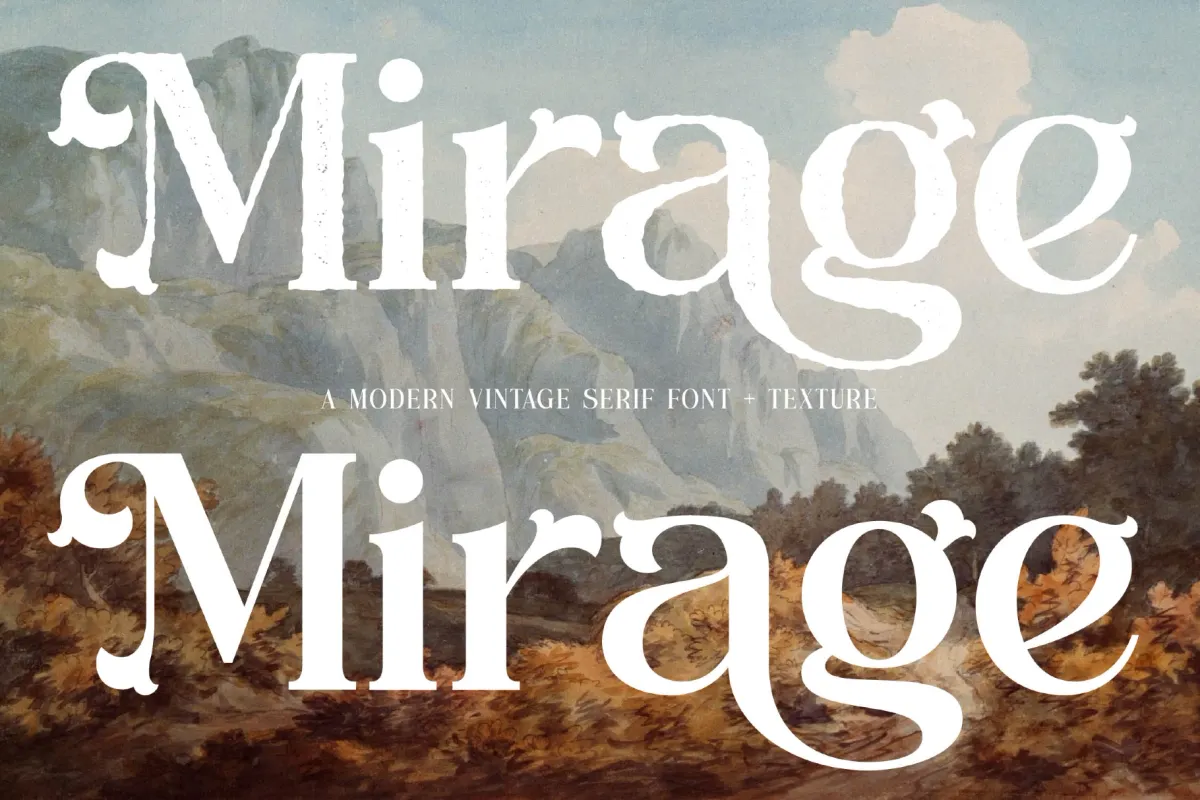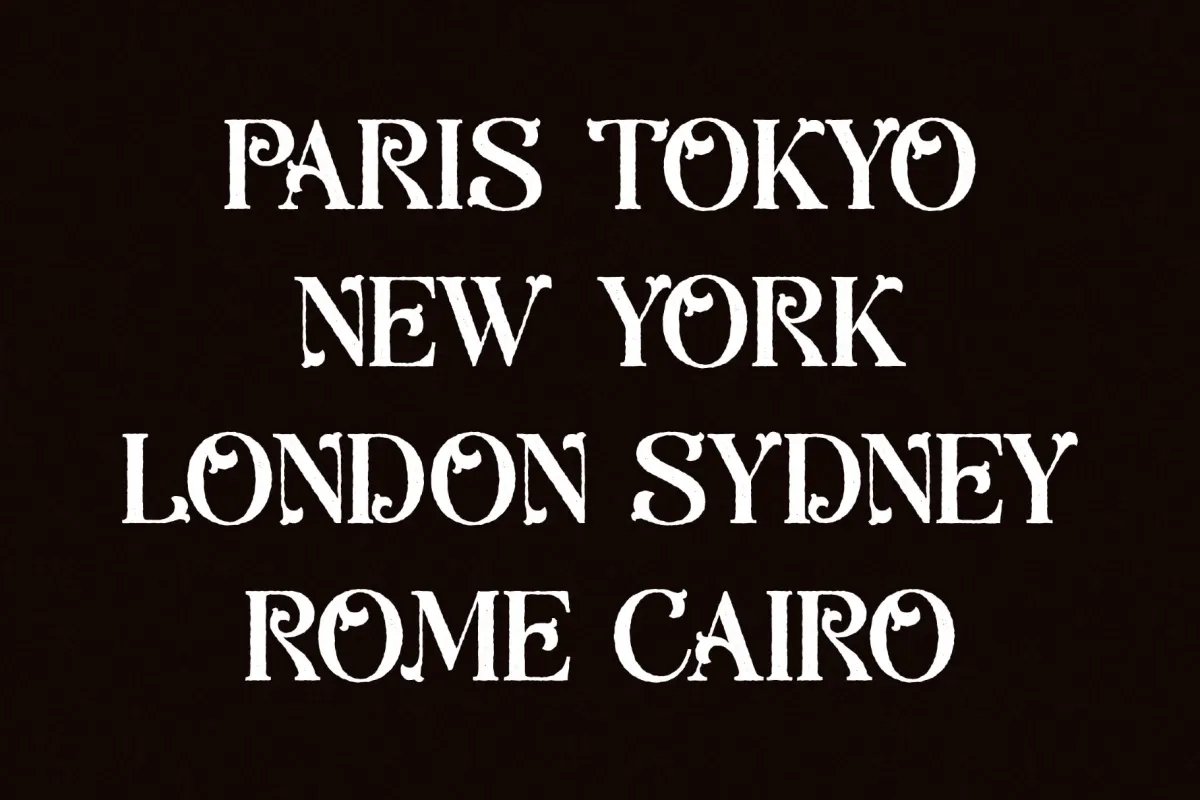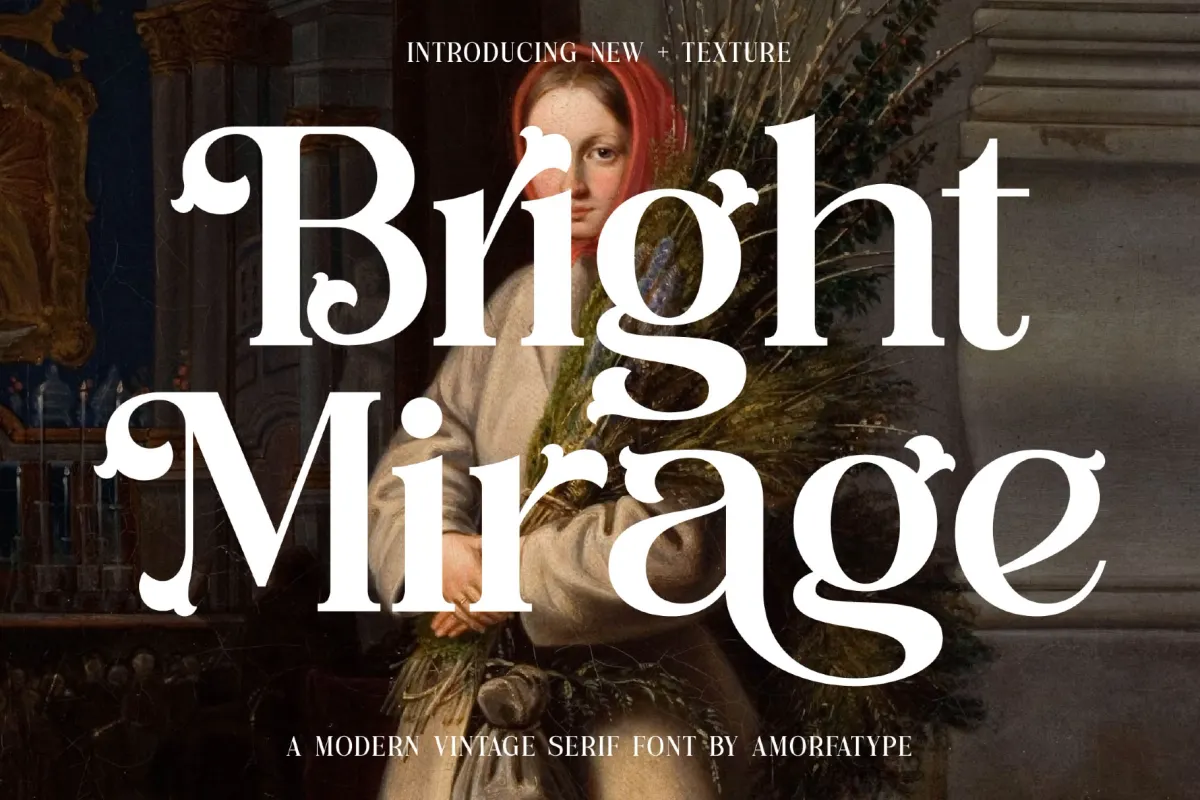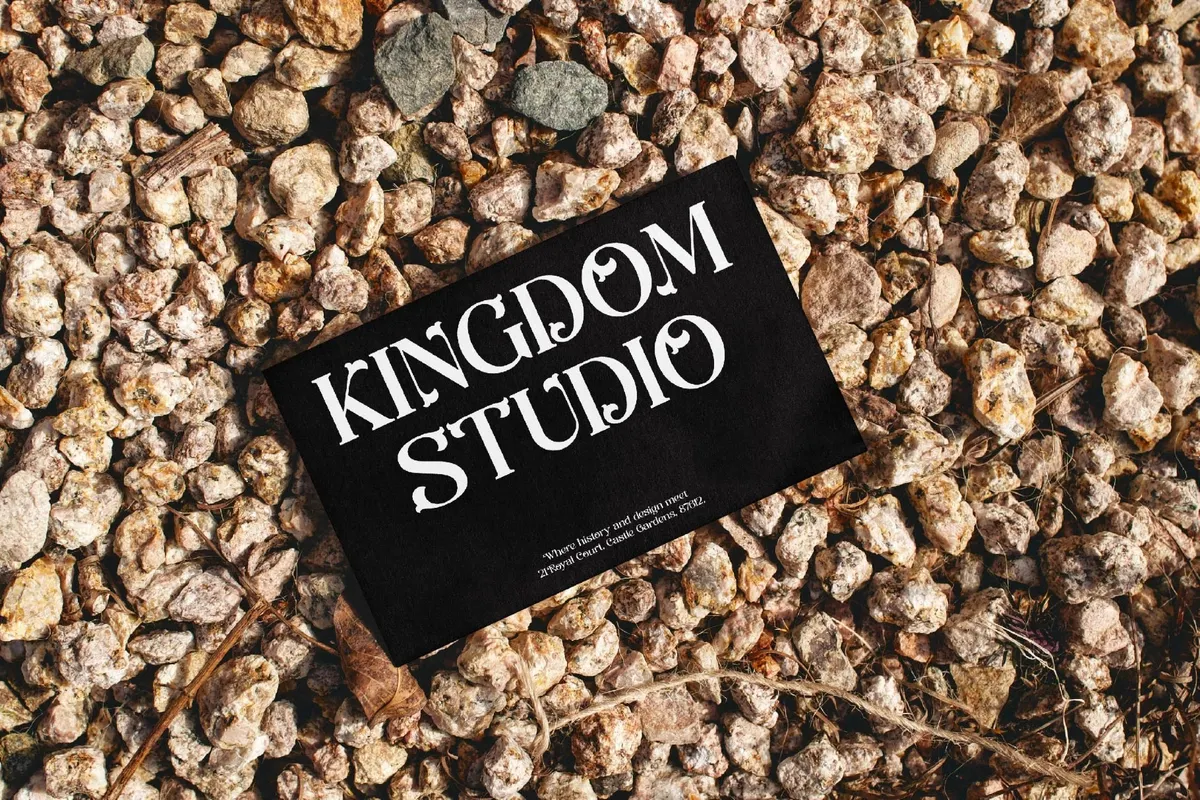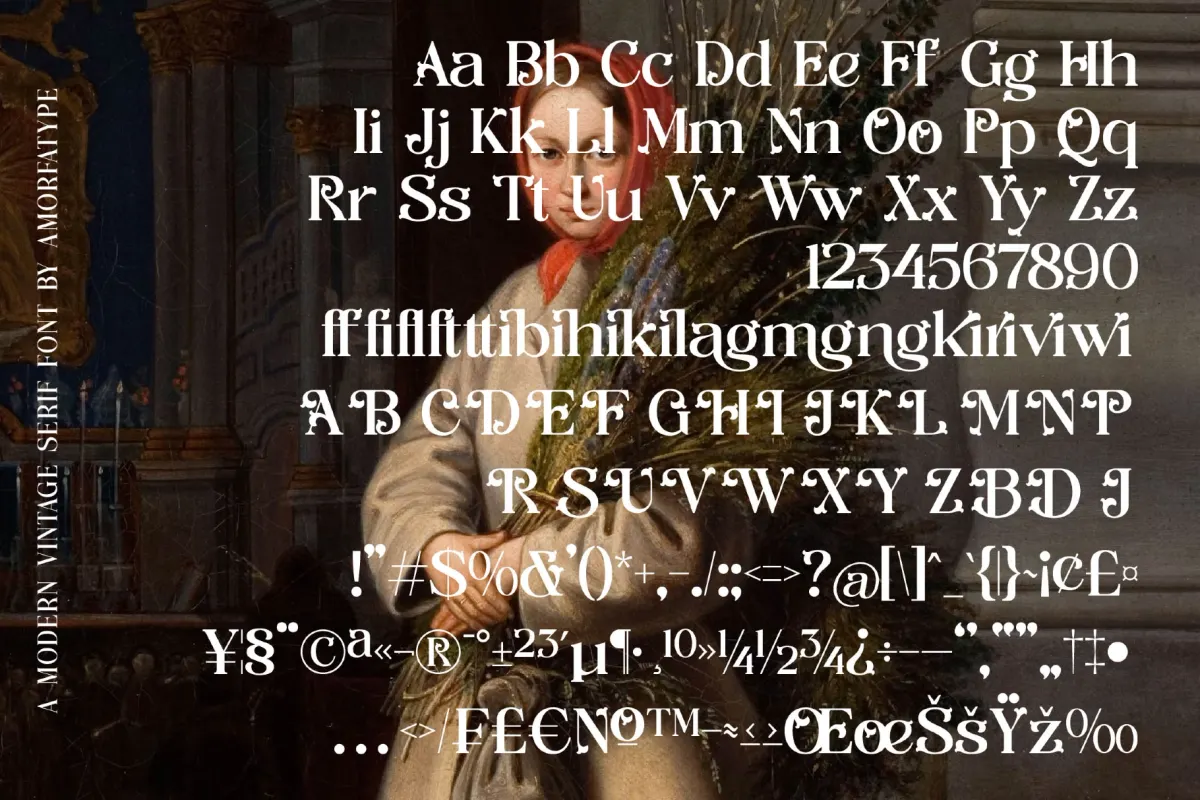
Bright Mirage - Modern Vintage Serif Font
Bright Mirage brings ball terminals and tall ascenders into a vintage serif built for both headline scale and body text. The Texture style overlays a fine grain across the same letterforms, so one family shifts between a clean editorial serif and a worn, hand-printed pass without switching fonts. Swashes and stylistic alternates dress up capital letters for title lines, while the lowercase holds a steady rhythm through longer passages.
Use it for luxury branding and wordmarks, editorial headlines and pull quotes, premium packaging labels, and layouts that pair a display line with body copy.
• 2 styles: Regular, Italic;
• Each style have texture version;
• Ligatures, stylistic alternates & swashes;
• Multilingual support;